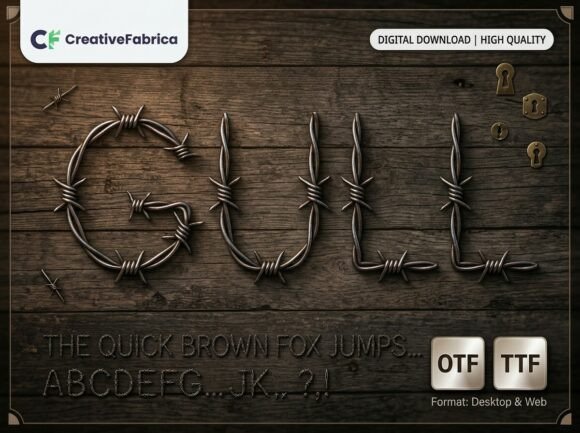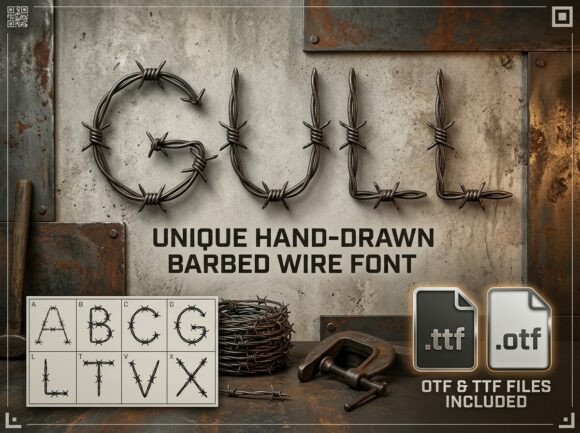
Bring a “Rugged and Wild” Edge to Your Designs with Gull Font
In the world of typography, fonts can evoke emotions, convey personalities, and make or break a brand’s identity. For designers and crafters looking to add a touch of ruggedness and wildness to their work, Gull Font is an exceptional choice. This unique display font is a literal interpretation of industrial tension, featuring letterforms constructed entirely from realistic barbed wire, complete with sharp twists and lethal-looking barbs.
The Inspiration Behind Gull Font
Gull Font is not just a typographic creation; it’s an experience. Inspired by the raw, unbridled energy of industrial materials, Gull’s design embodies the spirit of rebellion and resilience. Each letterform is meticulously crafted to resemble barbed wire, giving the font an aggressive silhouette and an “outlaw” aesthetic that’s hard to ignore.
Ideal Applications for Gull Font
Given its distinct characteristics, Gull Font is perfect for projects that require a bold, daring statement. Some of the ideal applications for Gull Font include:
- Heavy Metal Branding: For bands, music labels, or merchandise looking to capture the essence of heavy metal’s aggressive and powerful vibe, Gull Font is a premier choice.
- Edgy Streetwear Labels: Streetwear brands aiming to stand out with a bold, unconventional aesthetic will find Gull Font to be a perfect match.
- Survivalist Gear Logos: For companies specializing in outdoor gear, survival equipment, or tactical apparel, Gull Font’s rugged and resilient look is highly fitting.
- High-Impact “Grit-Core” Social Media Headers: Social media content creators focusing on grit-core themes can elevate their visual impact with Gull Font, making their posts stand out in crowded feeds.
Crafting with Gull Font: More Than Just Typography
For crafters and designers, Gull Font offers more than just a way to add text to a project; it’s a means to infuse personality and narrative. Whether you’re designing alternative music posters, creating branding for a ranch or rodeo, or crafting logos for automotive subcultures, Gull Font provides a unique edge that can set your work apart.
Alternative Music Posters
Music posters often serve as the first visual impression of an event or artist. With Gull Font, designers can create eye-catching posters for alternative music events, albums, or merchandise that immediately convey the music’s energy and genre.
Ranch or Rodeo Branding
Ranches and rodeos often embody a rugged, outdoorsy lifestyle. Gull Font can help brands in these industries communicate their authenticity and toughness, appealing to customers who value resilience and tradition.
Automotive Subculture Logos
The automotive world, especially in its subcultural niches, values boldness and a sense of rebellion. Gull Font can help automotive brands and enthusiasts create logos that reflect a daring, unconventional spirit.
Working with Gull Font: Tips and Tricks
To maximize the impact of Gull Font, consider the following tips:
- Scale Matters: Due to its intricate design, Gull Font shines best at larger sizes. Ensure you’re using it at a scale that allows its details to stand out.
- Color Choices: Stick to bold, contrasting colors that enhance the font’s rugged appearance. Metallic colors or gradients can add an extra layer of realism.
- Combine with Solids: Pair Gull Font with solid, blocky fonts to create visual contrast and make your design more readable.
Gull Font is more than just a typeface; it’s a statement. It’s for those who dare to be different, who embrace the wild and the rugged, and who wish to convey strength and resilience through their designs. Whether you’re a designer looking to push the boundaries of typography or a crafter seeking to add an edge to your projects, Gull Font offers a unique opportunity to bring a “rugged and wild” edge to your creations. With its industrial tension and outlaw aesthetic, Gull Font is poised to make a lasting impact on the world of design.